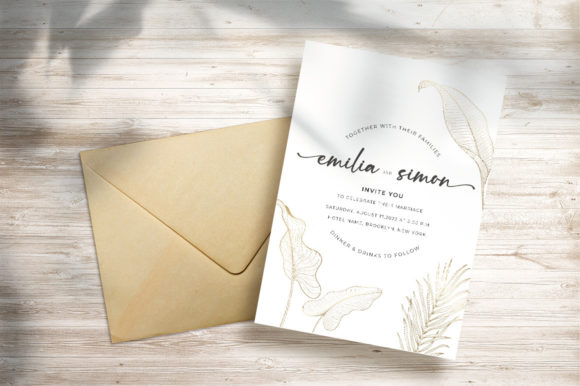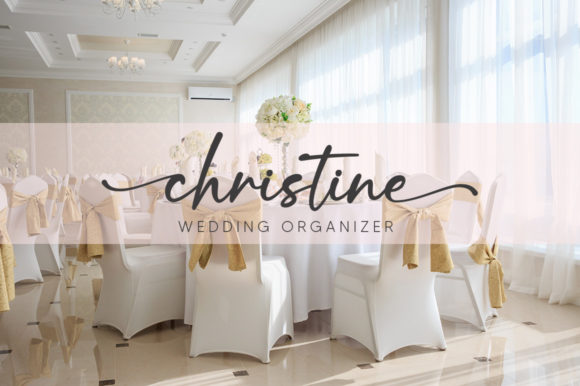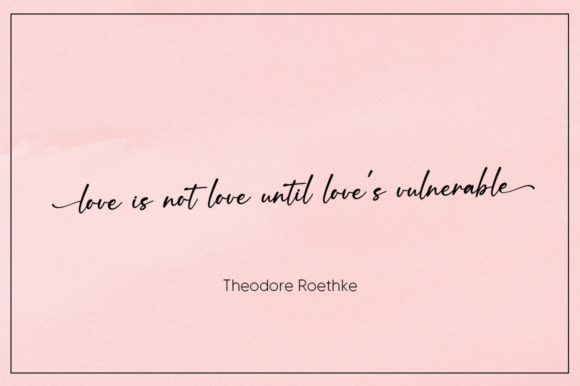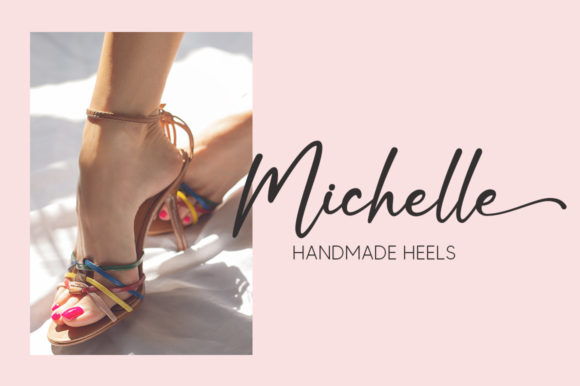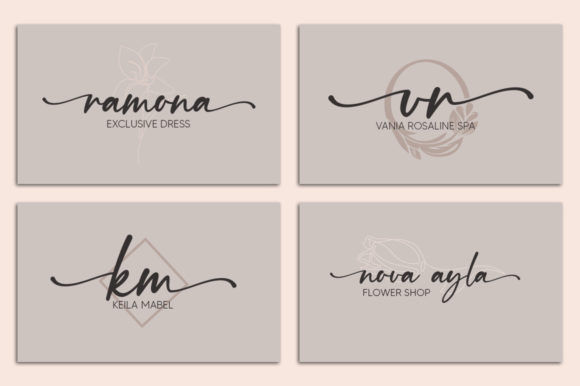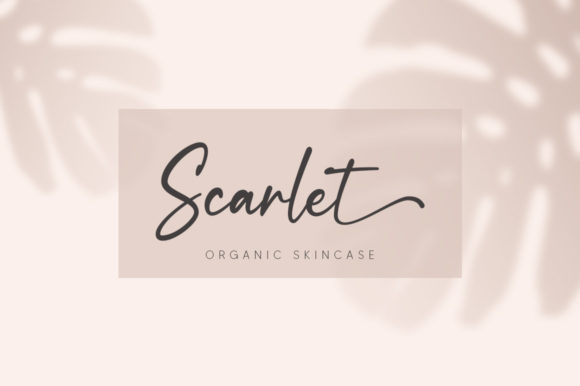
The Elusive Perfect Font: My Journey with Bethany
I’ll never forget the frustration of working on a design project, hours spent searching for that one perfect font. My client was specific: elegant, classy, and refreshing. I scrolled through font after font, but none seemed quite right. That was until I stumbled upon Bethany, a lovely and delicate script font that exuded elegance and class.
A First Impression: What I Love About Bethany
Bethany was particularly crafted for those who need a beautiful and refreshing look to their designs. Here are a few things that immediately won me over:
- ✨ Elegant and classy vibe: perfect for projects that need a touch of sophistication.
- ✅ PUA encoded: easy access to all the beautiful glyphs and swashes.
- 💫 Delicate and refined: adds a touch of whimsy to any design.
While Bethany has quickly become one of my go-to fonts, it’s not without its quirks. Here are a few things to consider:
- ✅ What I love: the range of glyphs and swashes, easy to use and accessible.
- 🤔 A few quirks: limited use in very small sizes, can be a bit finicky in some software.
- ⚠️ One limitation: not ideal for body text, better suited for headings and titles.
Exploring Alternatives: Similar Fonts to Bethany
While Bethany is a unique font, there are other beautiful script fonts that might suit your needs. Here are a few alternatives:
- Lora: A elegant and refined script font with a similar feel to Bethany. Use for: formal invitations, event branding, and high-end marketing materials.
- Pacifico: A beautiful and modern script font with a more relaxed vibe. Use for: creative projects, blog headers, and social media graphics.
- Great Vibes: A fun and energetic script font with a similar whimsy to Bethany. Use for: playful projects, kids’ branding, and party invitations.
- Alex Brush: A lovely and elegant script font with a more traditional feel. Use for: formal events, wedding invitations, and luxury branding.
The Story Behind Bethany: Designer Inspiration
Rather than a traditional backstory, let’s imagine that Bethany was created by a designer who wanted to capture the essence of a elegant garden on a warm summer day. With delicate lines and refined details, Bethany is the perfect font for adding a touch of sophistication to any design.